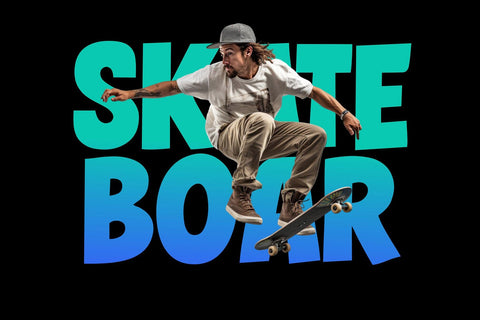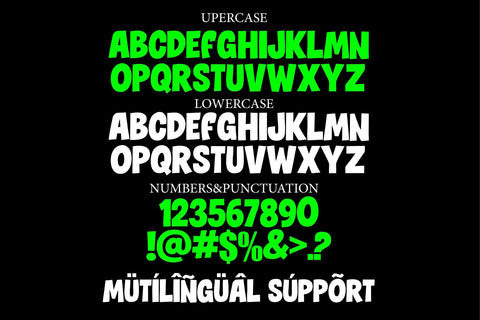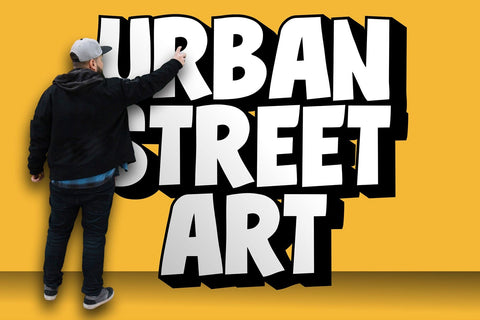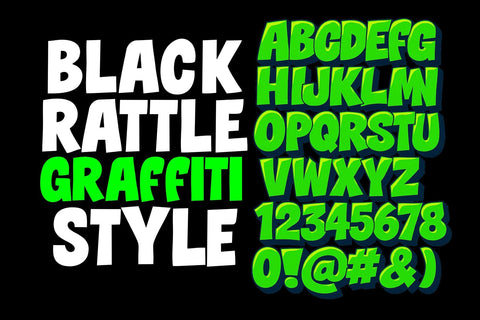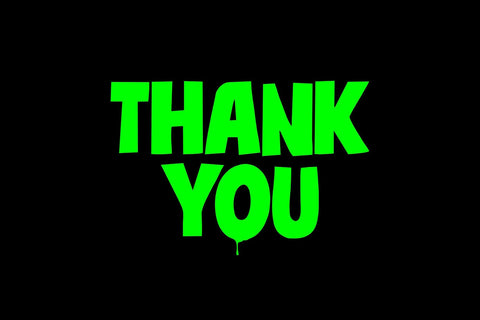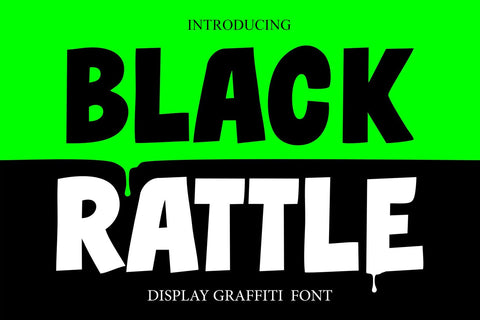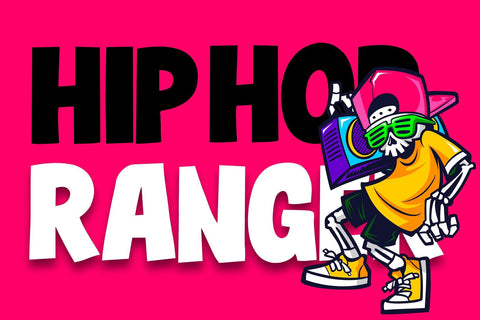
Black Rattle | Display Graffiti Bold Typeface
Black Rattle is a bold display graffiti font with a dripping edge, designed to bring urban culture straight into your projects. With heavy strokes, sharp forms, and authentic graffiti vibes, it’s perfect for posters, streetwear branding, album covers, flyers, and gaming visuals. The font includes uppercase, lowercase, numbers, punctuation, multilingual characters, and dripping alternates. Available in OTF and TTF formats, it installs easily and works across Adobe Illustrator, Photoshop, CorelDRAW, Affinity, and more. Black Rattle ensures your typography stands out with rebellious energy.